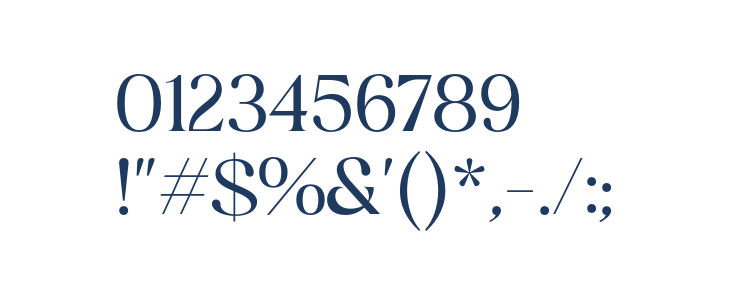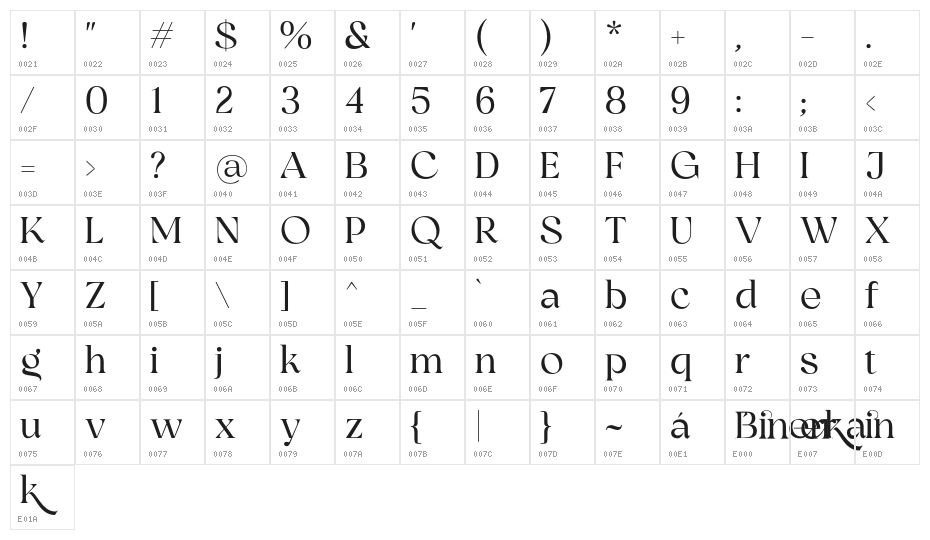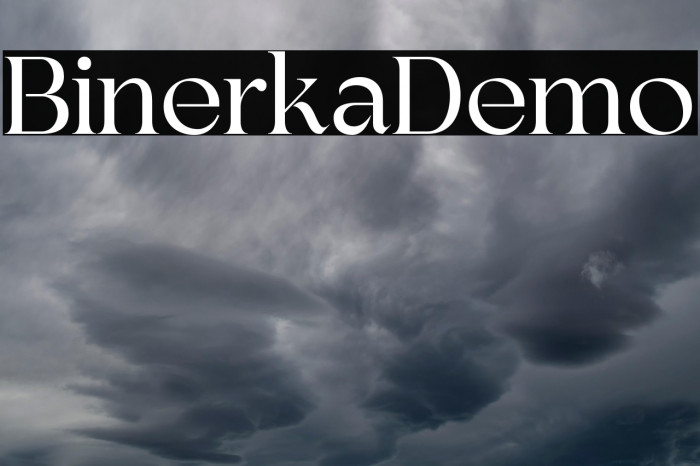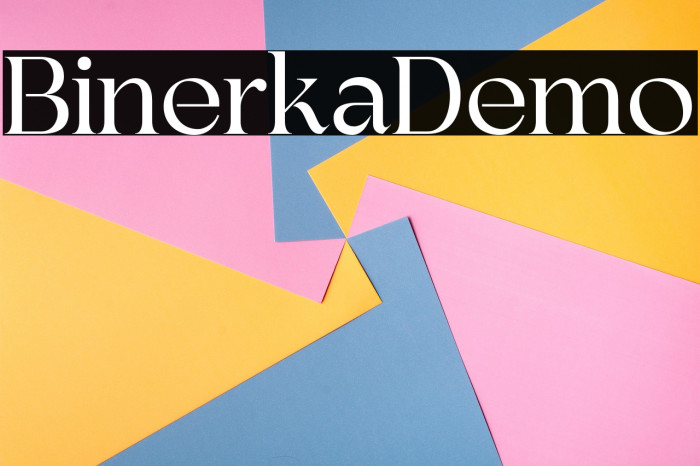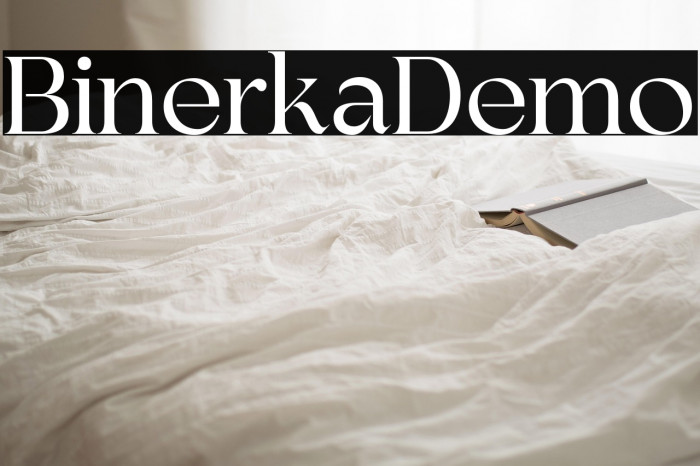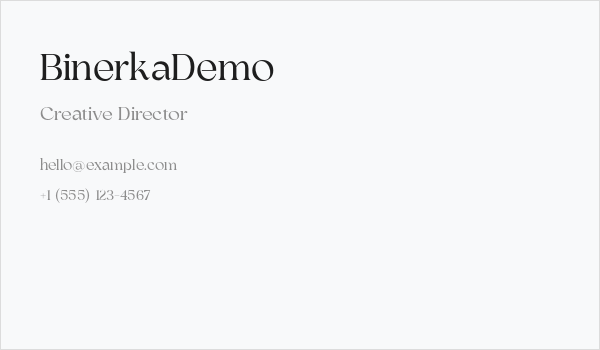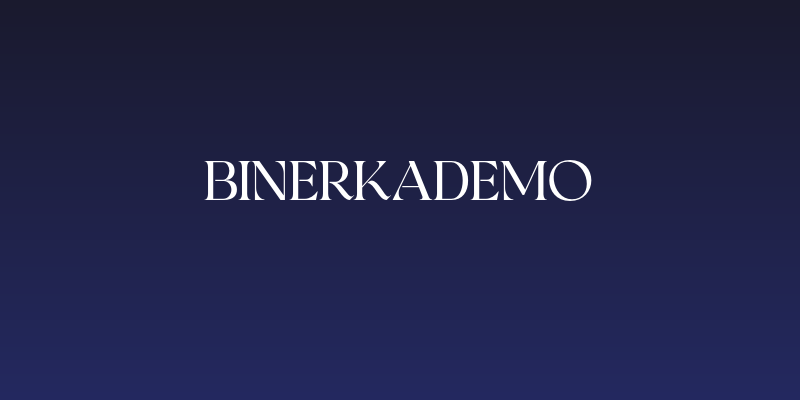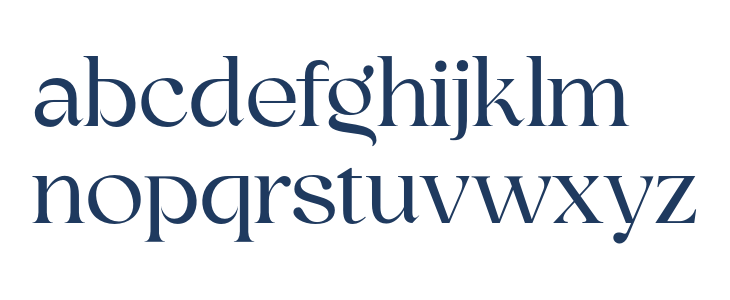
BinerkaDemo Font
BinerkaDemo Description
This font exhibits a classic serif style with elegant and refined strokes. The uppercase letters are characterized by their sharp serifs and balanced proportions, giving them a sophisticated appearance. The lowercase letters maintain a harmonious flow, with subtle curves and a consistent baseline. The numerals are clear and distinct, ensuring readability. Special characters are well-integrated, maintaining the overall aesthetic of the font. The design is versatile, suitable for both formal and creative applications, making it an excellent choice for projects that require a touch of elegance and tradition.